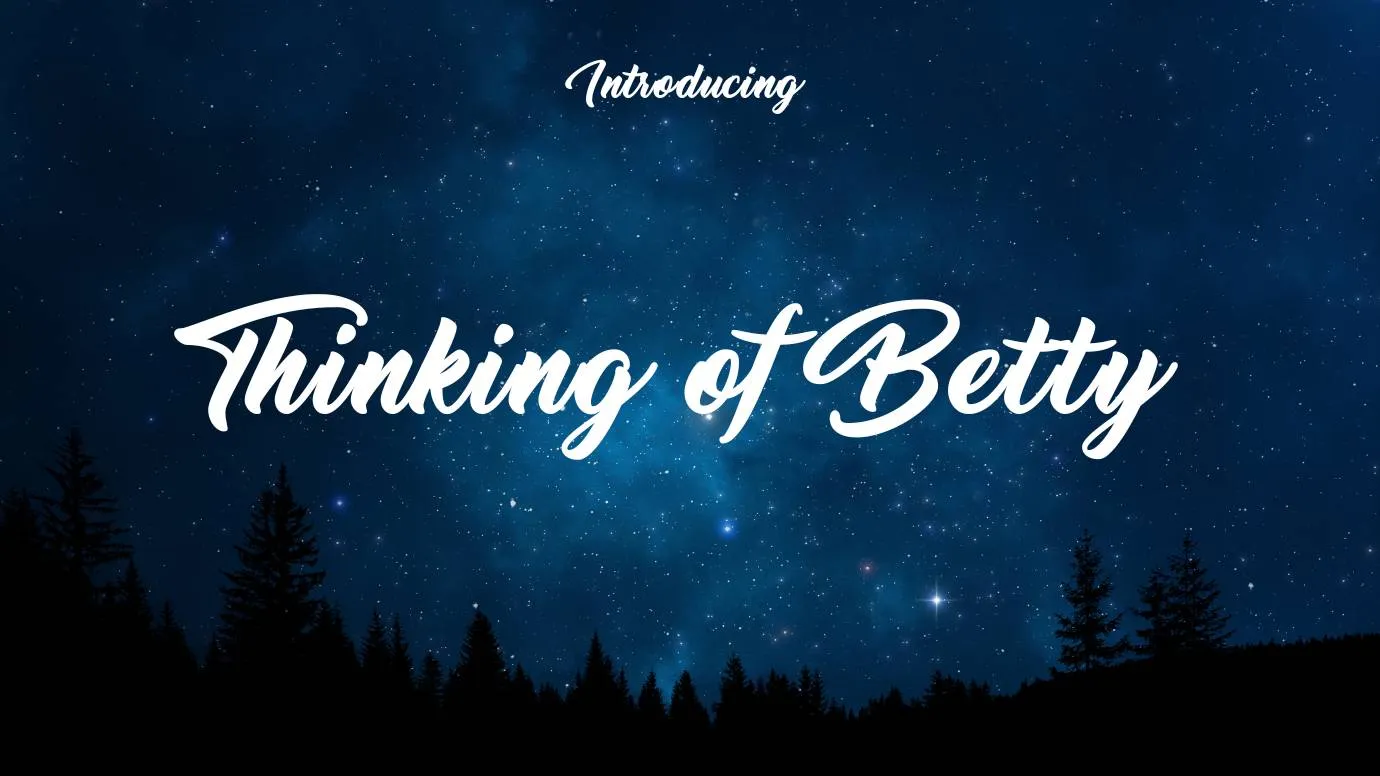
Thinking Of Betty Font Family is a very cohesive and cozy typeface. This texture falls in the classification of the script family of fonts. The real manufacturer of this typeface was Clément Nicolle.
This typography was finally released by StereoType which is a famous font foundry. Its characters show a brush look and make it more modern and stylish. The Moraline font is alternative to this typeface.
Thinking Of Betty Font